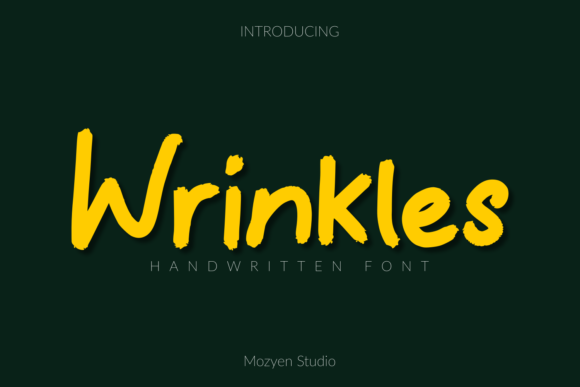
Introducing Wrinkles Font, a distinctive script font that radiates playfulness, fun, and an underlying sense of seriousness. Created by the talented mozyenstudio, this font is crafted with meticulous care to offer an exquisite blend of elegance and functionality. Wrinkles stands out as the ultimate choice for those seeking creative expression.
Journey into a world of typographic delight as the Wrinkles script captivates your eyes and inspires your imagination. Each character dances across the page, exuding charm and personality. Experience the joy of crafting unique designs that resonate with your audience. From whimsical invitations to heartfelt letters, Wrinkles effortlessly adds a touch of magic to your words.
Imagine transforming your creative projects into visual masterpieces with the versatile Wrinkles script. Its dual nature allows it to adapt effortlessly to various design styles, from light and airy to bold and impactful. Let your creativity soar as you explore the endless possibilities that Wrinkles unlocks.
Whether you're a designer, artist, or simply someone with a passion for beautiful fonts, Wrinkles is the perfect tool to elevate your projects to new heights. Its versatility knows no bounds, making it an ideal choice for logos, branding, website design, social media graphics, and so much more. Embrace the power of Wrinkles and unlock the full potential of your creative vision.
With Wrinkles, the world of typography becomes your playground. Dive into a kaleidoscope of artistic expression and let your imagination run wild. Discover the endless possibilities that await as you explore the limitless boundaries of design. Immerse yourself in the Wrinkles experience, where creativity thrives and beauty reigns supreme.